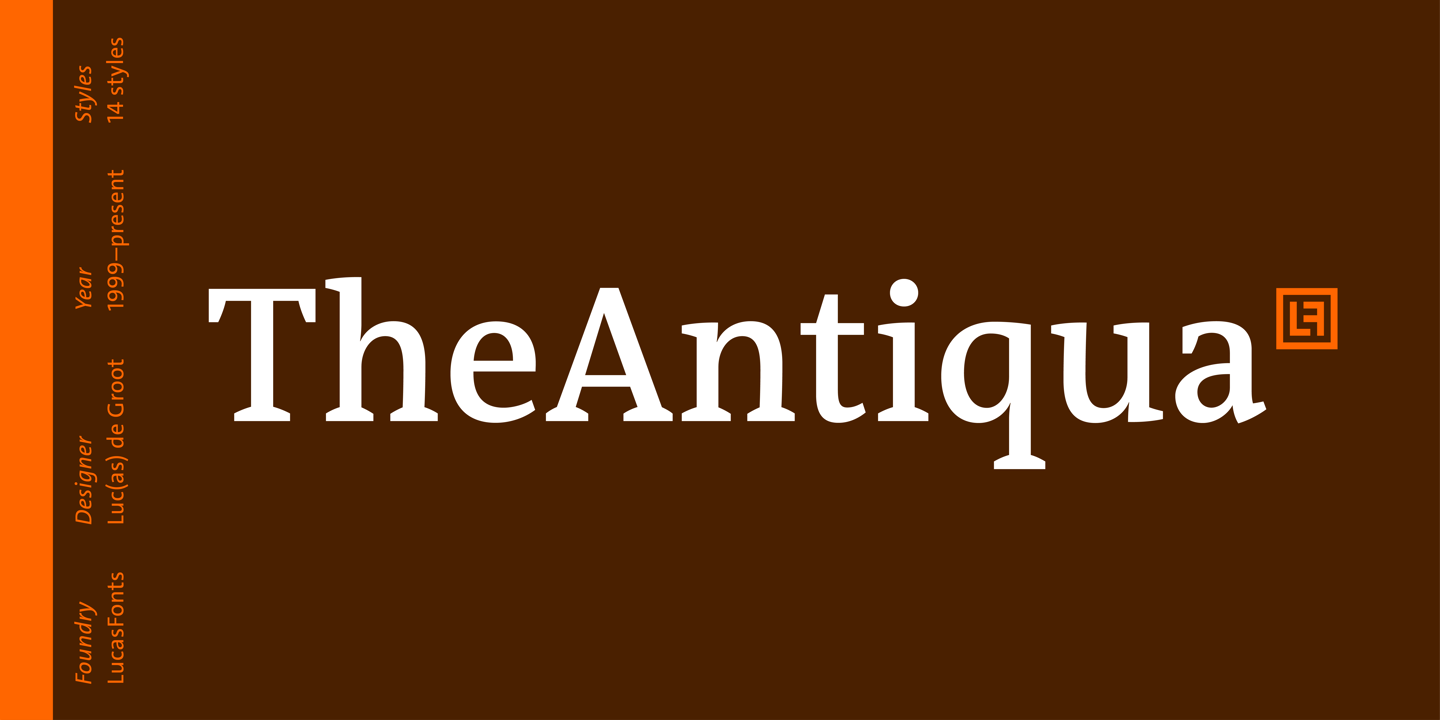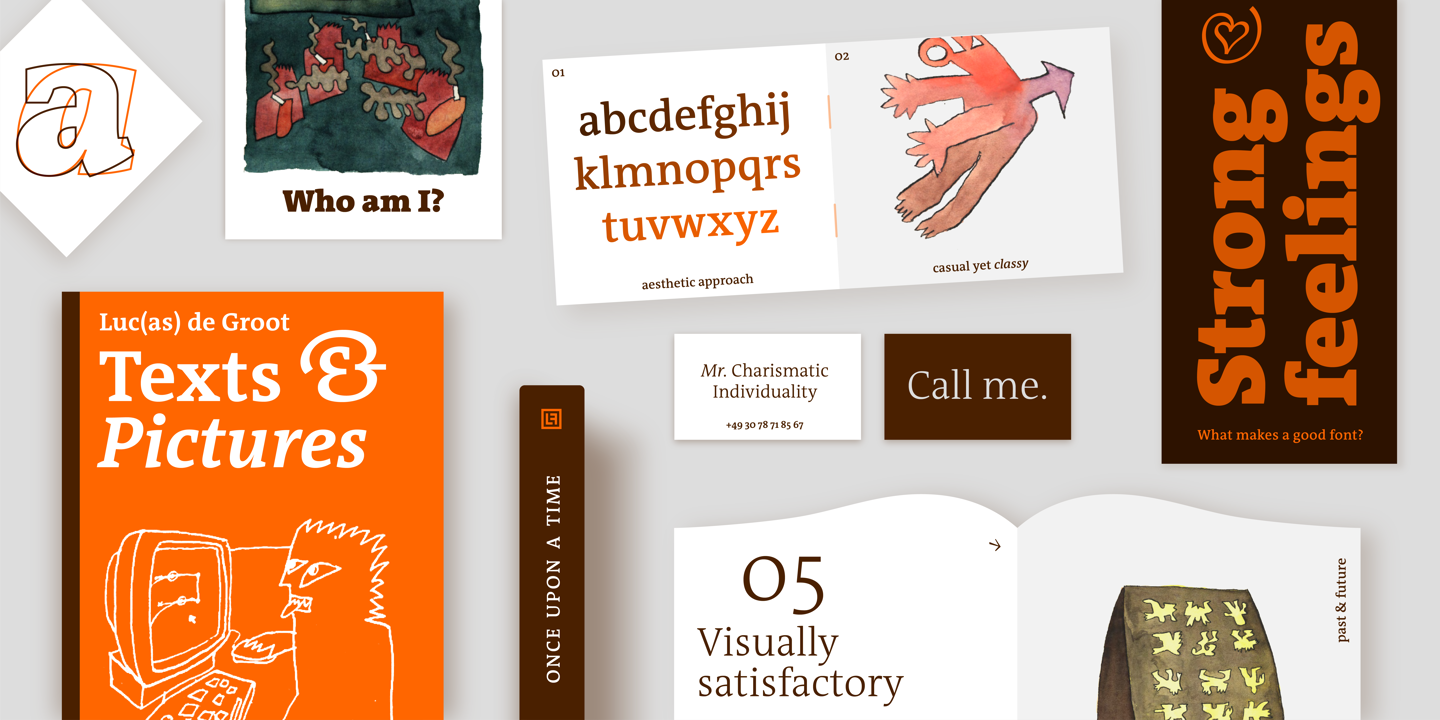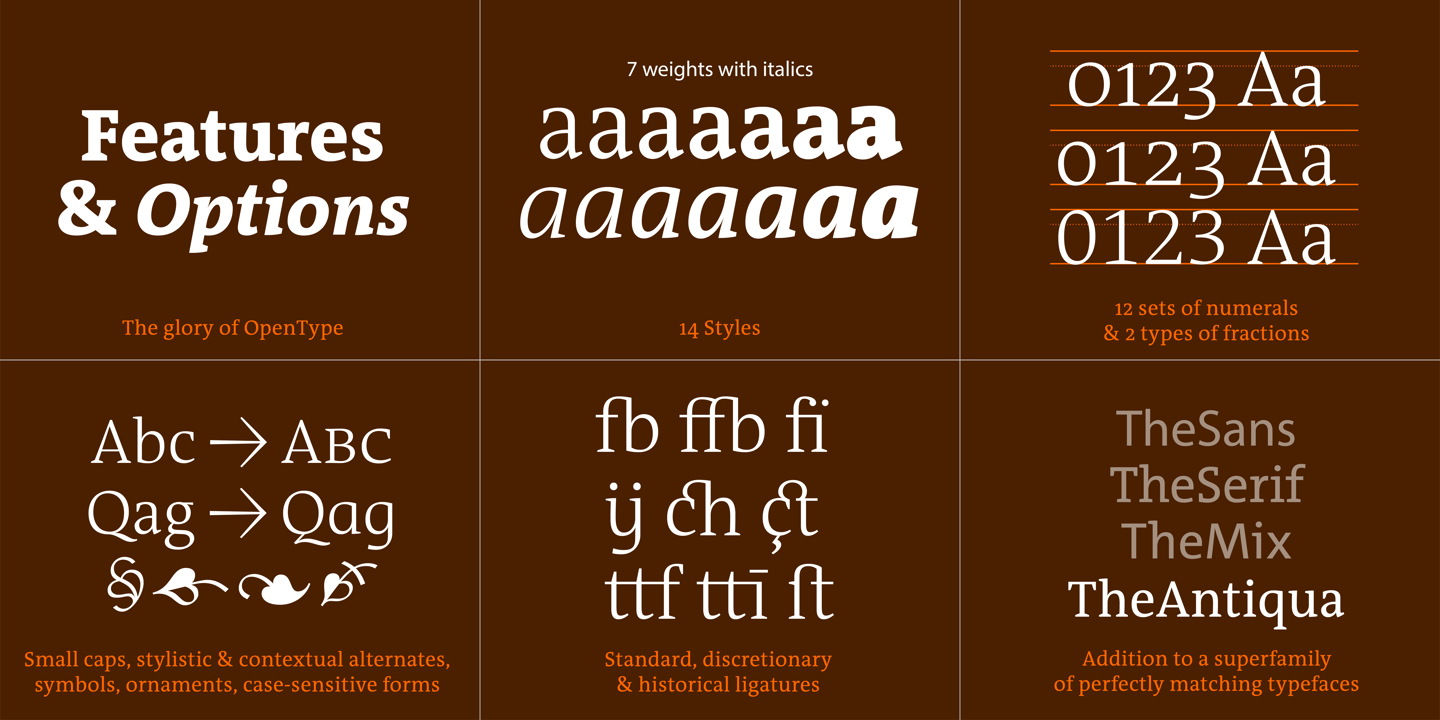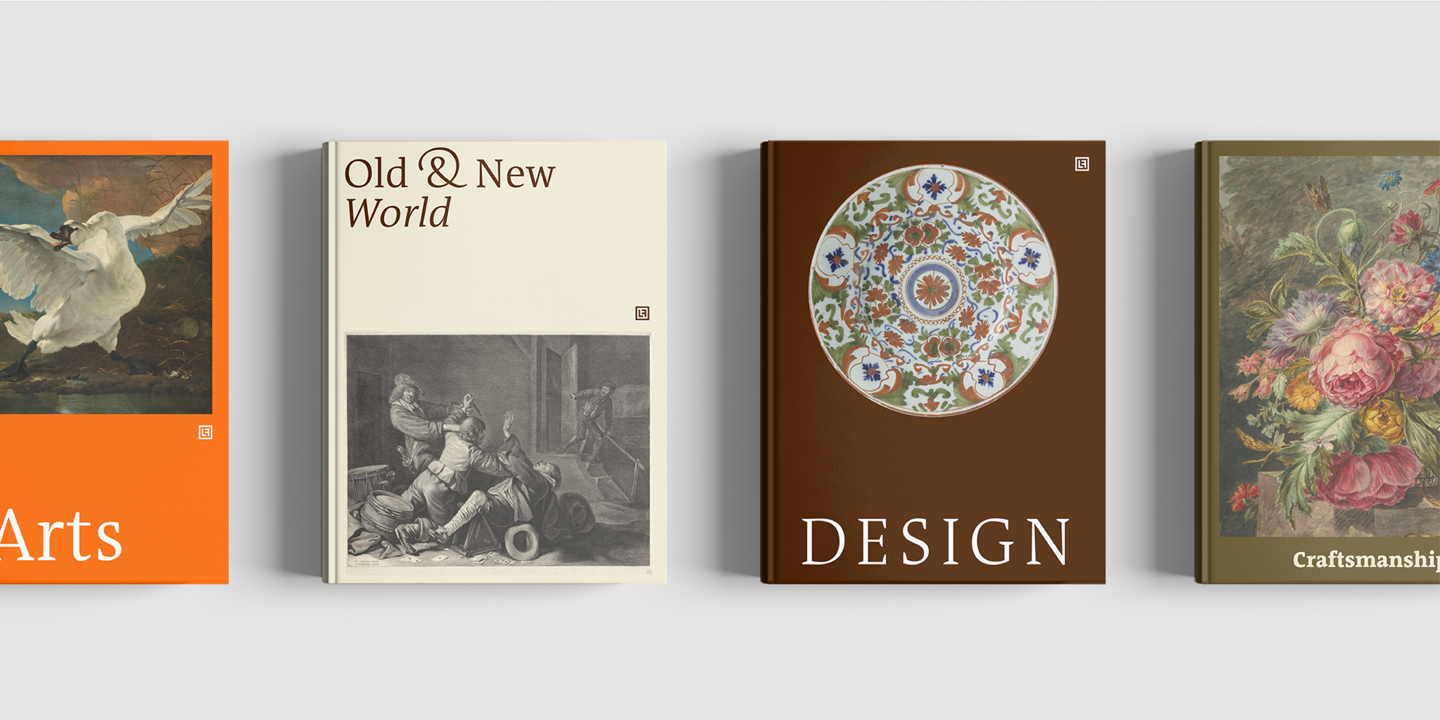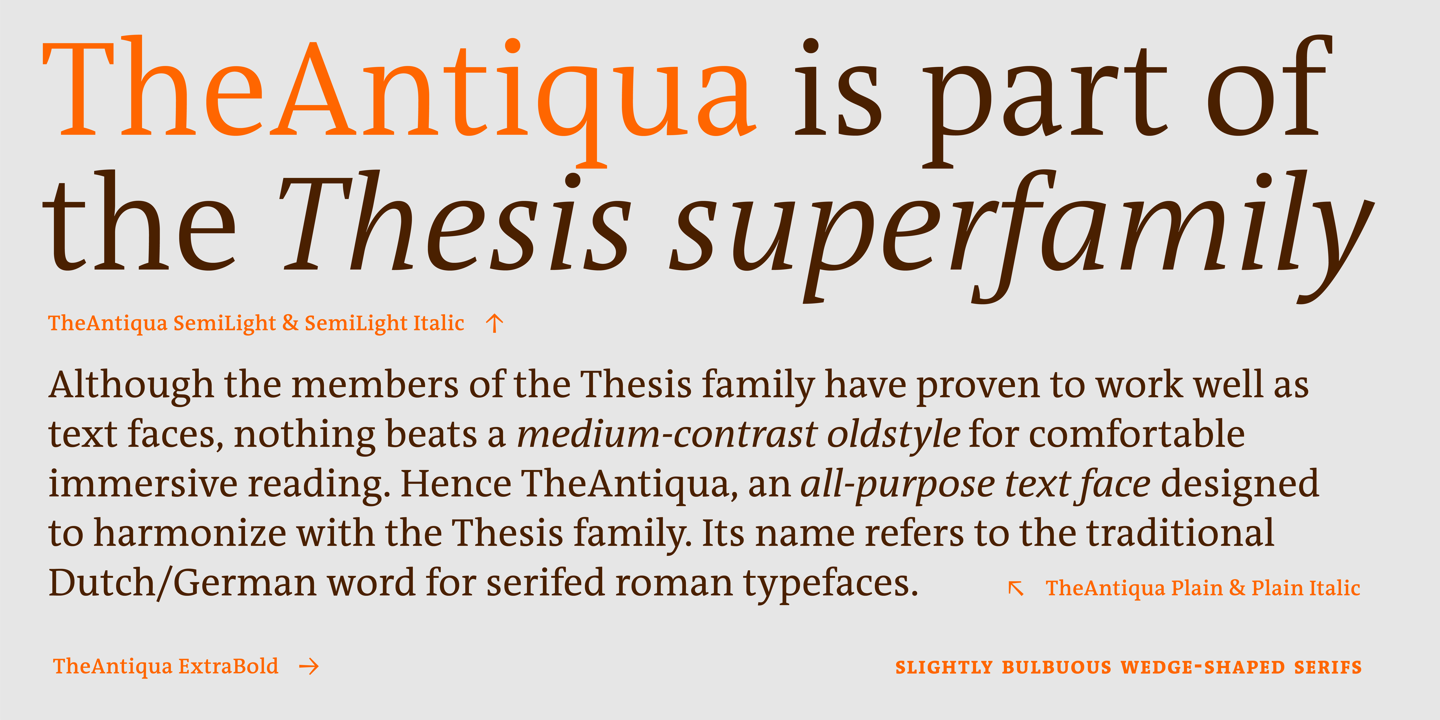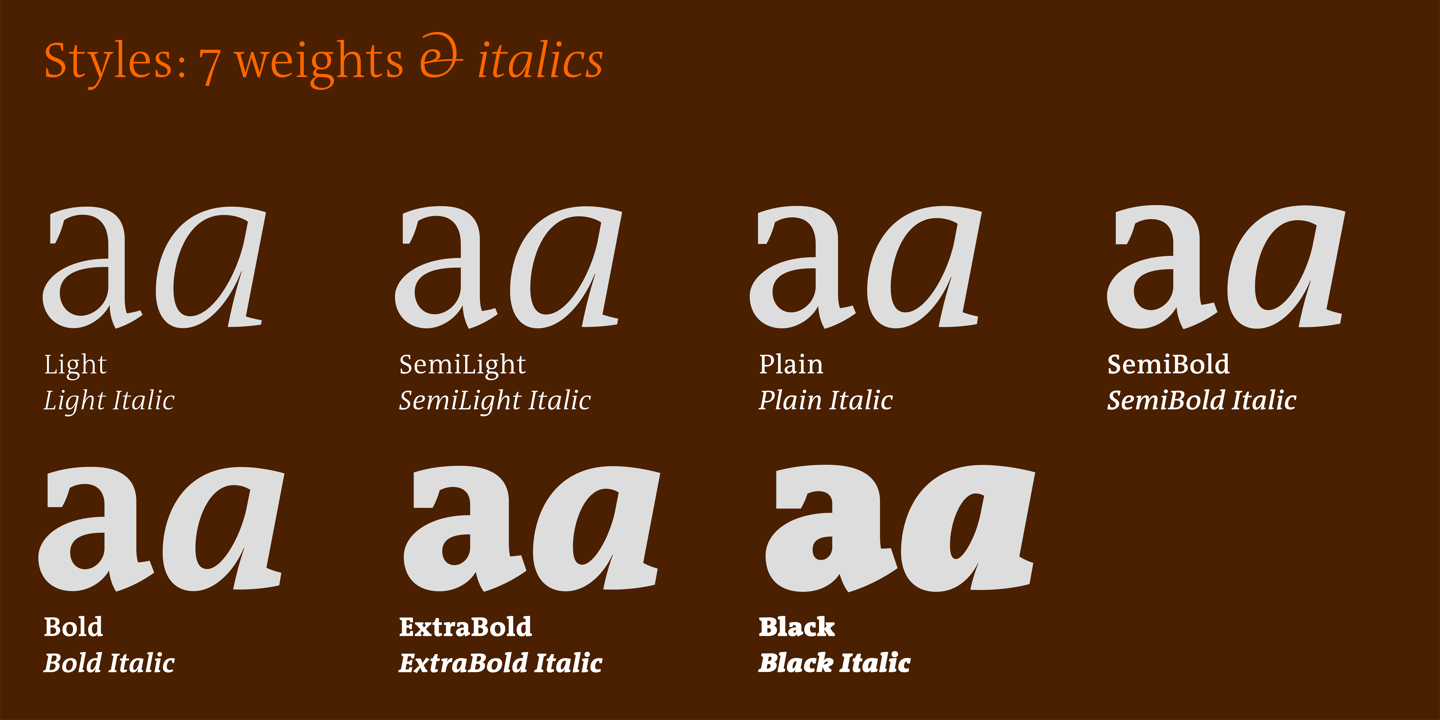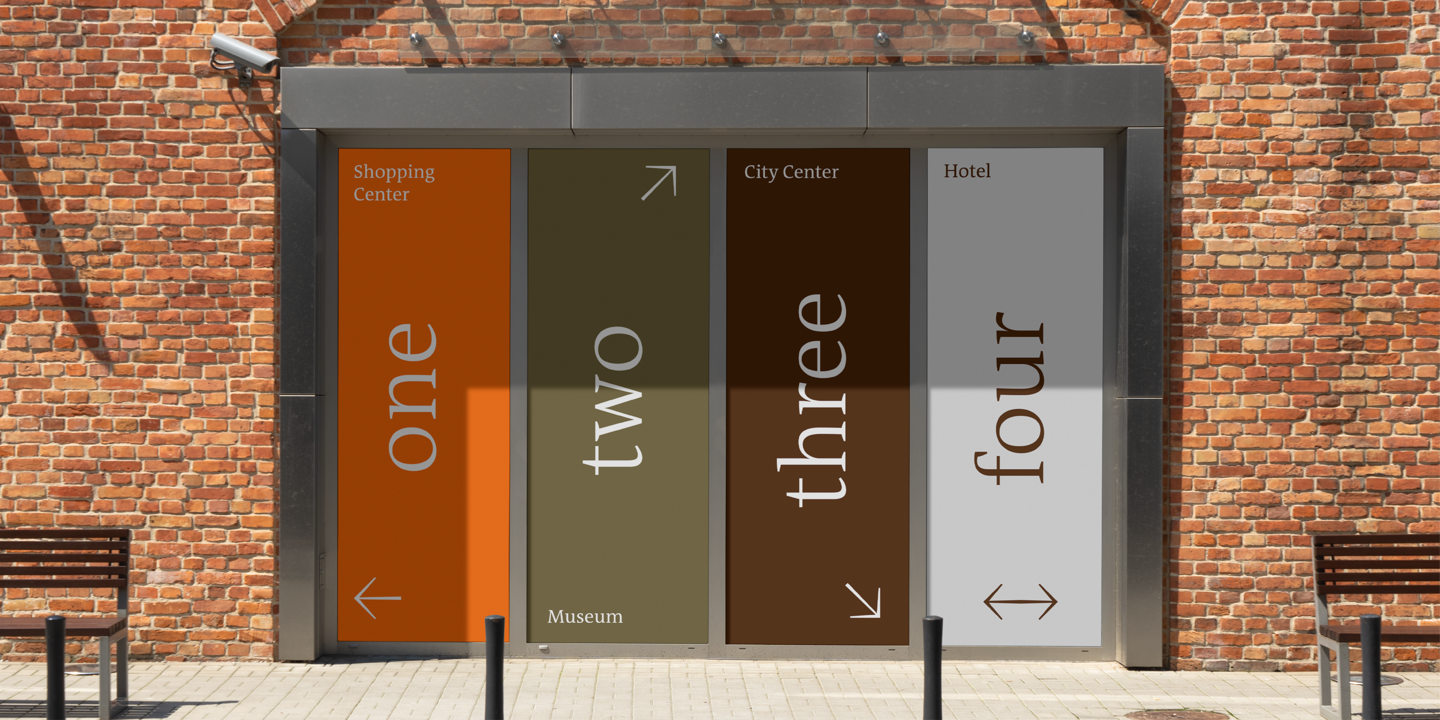
About TheAntiqua Font Family Although the members of the Thesis family have proven to work well as text faces, nothing beats a medium-contrast oldstyle for comfortable immersive reading.
Hence TheAntiqua, an all-purpose text face whose name refers to the traditional Dutch/German word for oldstyle. Designers: Luc(as) de GrootPublisher: LucasFontsFoundry: LucasFontsDesign Owner: LucasFontsMyFonts debut: Jun 24, 2021 TheAntiqua